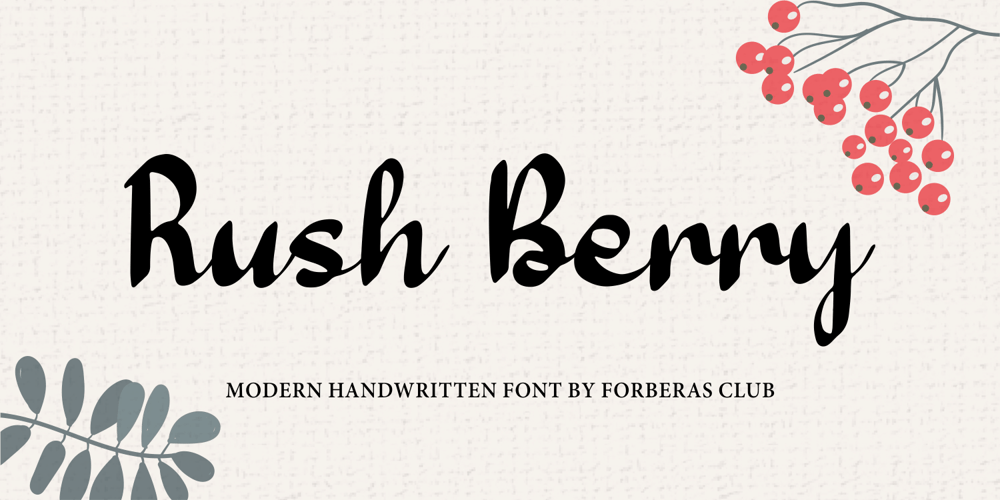
Rush Berry
Rush Berry font
Rush Berry Font Family was designed by ANGGI HERMAWAN and published by Forberas Club. Rush Berry contains 1 styles and family package options. Rush Berry font is handwritten style. Recommended to use for wedding party, invitation, memorable moment, love story and many more with special moment.